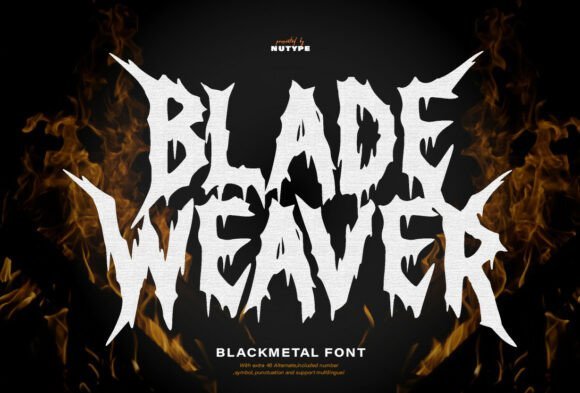
Unleash the Darkness: Introducing Blade Weaver Font
Have you ever stared into the void of a blank design canvas, waiting for the perfect font to bring your terrifying vision to life? That’s exactly where I was when I first discovered the Blade Weaver Font – a hauntingly beautiful display typeface that seemed to whisper eerie tales of the unknown. With its sharp, distorted strokes and dark fantasy aesthetic, this font is the ultimate companion for designers who dare to tread the line between creativity and chaos.
As a valuable addition to your design toolkit, the Blade Weaver Font offers over 40 alternates to craft unique, spine-tingling visuals that will leave a lasting impression. Whether you’re working on horror posters, movie titles, or game logos, this font’s bold and eerie personality is sure to elevate your projects to the next level.
Blade Weaver Font Key Features
- Font Family: Blade Weaver is a unique and intricate font family with multiple styles, including Regular, Italic, Bold, and Bold Italic.
- Unique Characteristics: Blade Weaver features intricate, hand-drawn designs with unique ligatures, swashes, and flourishes, adding an artistic touch to any design project.
Blade Weaver Font Review
At first glance, Blade Weaver Font seems like an exciting addition to any design project. The ✨ unique blend of fantasy and cyberpunk elements immediately catches the eye, making it perfect for science fiction or fantasy-themed projects.
Here are some aspects where Blade Weaver Font truly shines:
- ✨ Unique and striking design: The font’s blend of fantasy and cyberpunk elements makes it perfect for science fiction or fantasy-themed projects.
- ✨ High-quality rendering: The font is well-crafted and has a high-quality rendering, making it suitable for various design applications.
- ✨ Extensive character set: The font includes a wide range of characters, making it suitable for various languages and design projects.
- ⚠️ Limited flexibility: The font’s design may not be suitable for projects that require a more minimalist or modern aesthetic.
- ⚠️ Limited font sizes: The font may not be suitable for very large or very small font sizes, as the design may become distorted.
Overall, Blade Weaver Font is a great choice for designers who are looking for a unique and striking font for their science fiction or fantasy-themed projects. While it may have some limitations, it is a high-quality font that is sure to impress.
The Blade Weaver Font is ideal for:
- Creating futuristic and high-tech designs.
- Designing video game titles and menus.
- Adding a touch of sci-fi to your branding and marketing materials.
Alternatives to Blade Weaver Font
Q: Are there any recommended font sizes or line heights for optimal readability with the Blade Weaver Font?
For optimal readability, we recommend using font sizes between 12pt and 24pt, with a line height of at least 120-150% of the font size. This will ensure that the text remains clear and legible, even at smaller sizes.